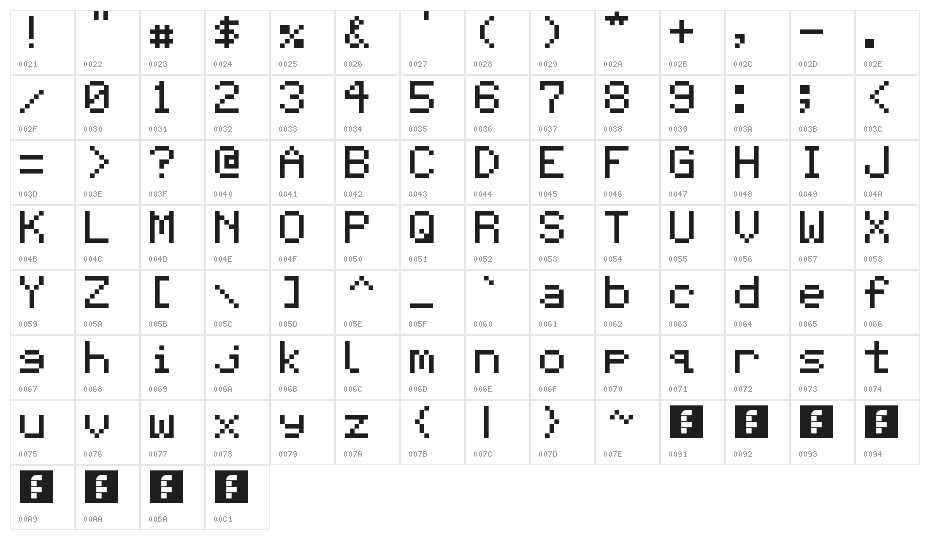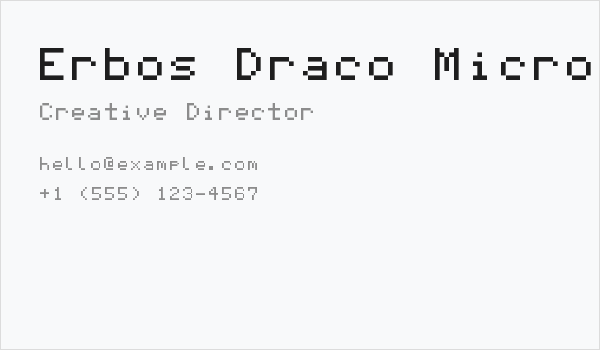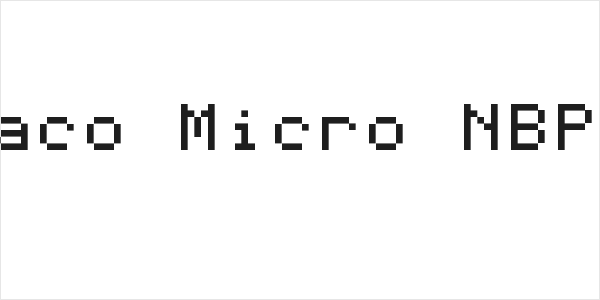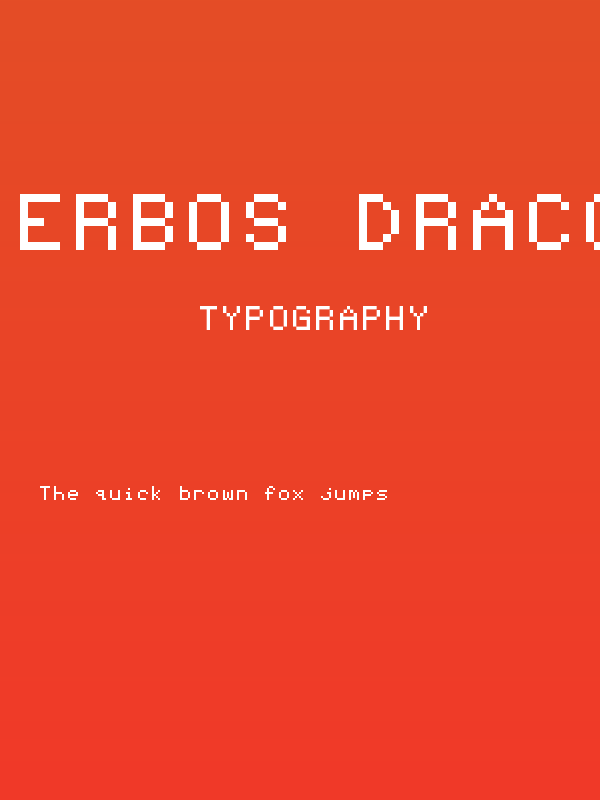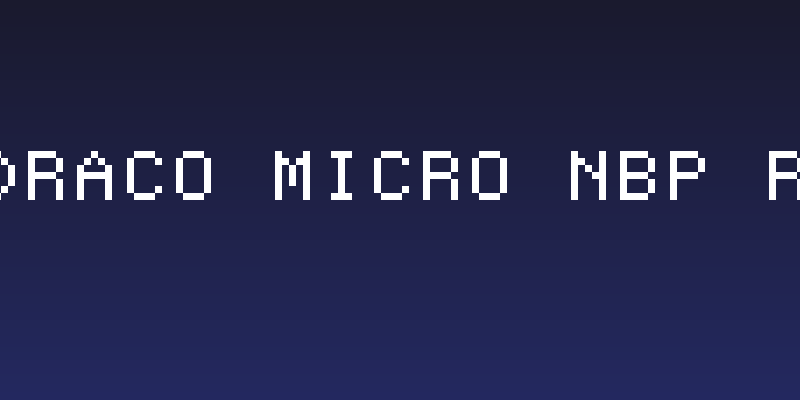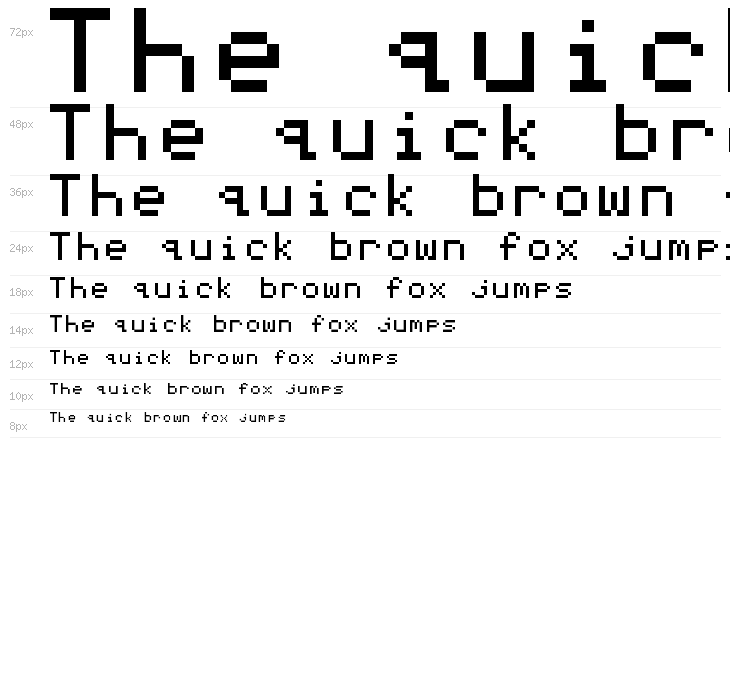
Erbos Draco Micro NBP Regular Font
Erbos Draco Micro NBP Regular Description
This font features a pixelated, monospaced design reminiscent of classic video game typography. Each character is constructed with a grid-like precision, giving it a distinctly retro and digital appearance. The uniformity in character width ensures a consistent and structured look, ideal for coding or digital displays. The font maintains clarity and readability even at smaller sizes, making it versatile for various applications. Its geometric and blocky style evokes a sense of nostalgia, perfect for projects aiming to capture a vintage or tech-inspired aesthetic.
| Use Case | Digital displays, Coding, Retro games |
| Proposed Projects | Ideal for retro video games, digital displays, coding environments, and tech-themed designs. |